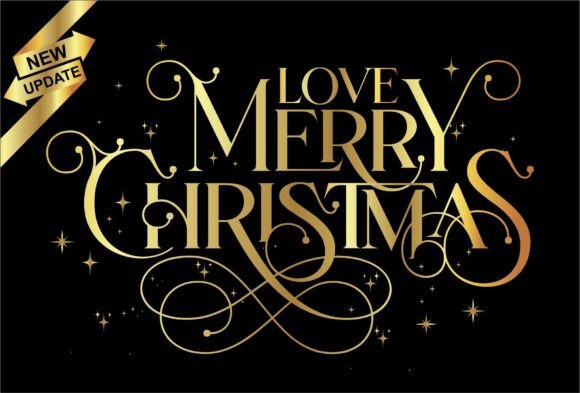
Love Merry Christmas Font: A Timeless Elegance for Holiday Greetings
The holiday season is upon us, and with it comes the joy of sending out festive greetings, creating beautiful cards, and decorating our homes with love and care. One of the most crucial elements in making your holiday messages and decorations stand out is the font you choose. This is where the “Love Merry Christmas Font” comes into play, a fancy, elegant serif font that embodies the spirit of the season with its graceful curves and stylish details.
What is Love Merry Christmas Font?
Love Merry Christmas is a fancy, elegant serif font designed to bring a touch of classic charm to your holiday greetings, cards, and decorations. Its letters are carefully crafted with graceful curves and stylish details, making it perfect for anyone looking to add a bit of sophistication and festivity to their holiday messages.
This font is not just a simple set of characters; it’s an experience. It’s a way to convey your warmest wishes, your love, and your joy during the holiday season. Whether you’re designing a Christmas card, a holiday banner, or simply a festive social media post, Love Merry Christmas Font is the perfect choice to make your content stand out.
Uses of Love Merry Christmas Font
The versatility of Love Merry Christmas Font makes it suitable for a wide range of applications during the holiday season. Here are some of the ways you can use this beautiful font:
- Holiday Greetings: Use it to create elegant and heartwarming holiday greetings for your loved ones.
- Christmas Cards: Design beautiful and unique Christmas cards that will surely impress your friends and family.
- Decorations: Add a touch of elegance to your holiday decorations, including banners, posters, and more.
- Social Media Posts: Make your holiday social media posts stand out with this elegant font.
- Invitations: Create festive and sophisticated invitations for your holiday parties and events.
Features of Love Merry Christmas Font
So, what makes Love Merry Christmas Font so special? Here are some of its key features:
- Elegant Serif Design: The font features a classic serif design that exudes elegance and sophistication.
- Graceful Curves: The letters are designed with graceful curves that add a touch of charm and beauty to your holiday messages.
- Stylish Details: The font is rich in stylish details, making it perfect for creating visually appealing holiday content.
- Festive Feel: Despite its elegance, the font has a distinctly festive feel, making it ideal for the holiday season.
- Classic Charm: The font brings a touch of classic charm to your holiday greetings, cards, and decorations.
Tips for Using Love Merry Christmas Font
To make the most out of Love Merry Christmas Font, here are some tips:
- Pair it with Other Fonts: Experiment with pairing Love Merry Christmas Font with other fonts to create a unique and visually appealing design.
- Use it in Large Sizes: The font looks stunning in large sizes, making it perfect for headings and titles.
- Play with Colors: Don’t be afraid to experiment with different colors to find the perfect match for your holiday design.
- Keep it Simple: Sometimes, less is more. Keep your design simple and let the beauty of the font shine through.
Love Merry Christmas Font is a beautiful, elegant serif font that is perfect for adding a touch of classic charm to your holiday greetings, cards, and decorations. Its graceful curves and stylish details make it a standout choice for anyone looking to create sophisticated and festive holiday content. With its versatility and elegance, this font is sure to become a favorite in your holiday design toolkit.